Retro vintage fonts remain a timeless choice for designers who want to create strong visual impact, emotional appeal, and nostalgic character. Inspired by typography from the 1950s to 1970s, these fonts are perfect for branding, logos, posters, apparel, packaging, and digital products.
1. Cooper Black – Iconic Retro Serif
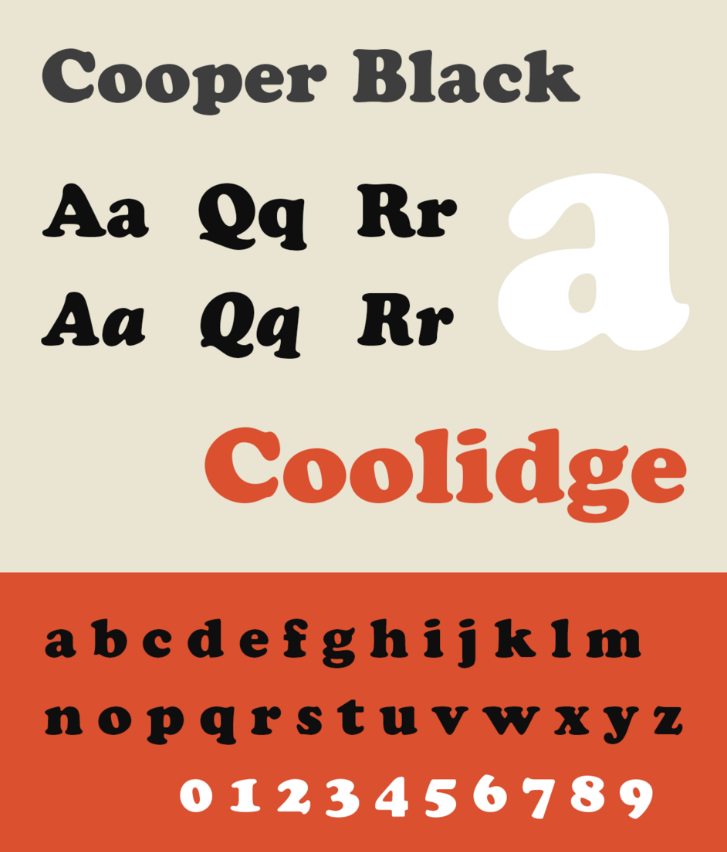
Cooper Black is a classic serif font with rounded, bold letterforms. Widely used in vintage posters, album covers, and nostalgic branding.
Best for:
- Retro posters
- Vintage logos
- Editorial headlines
2. Lobster – Classic Retro Script
Lobster is a well-known script font with strong retro personality. Ideal for food branding, cafés, packaging, and lifestyle designs.
Style: Friendly, bold, and expressive.
3. Pacifico – Relaxed 1950s Script
Inspired by American surf and signage lettering, Pacifico delivers a warm and casual vintage feel.
Great for:
- Merchandise
- Social media graphics
- Retro branding concepts
4. Playfair Display – Elegant Vintage Serif
Playfair Display offers a classic editorial look with high contrast strokes, perfect for premium and sophisticated designs.
5. Anton – Bold Retro-Modern Display
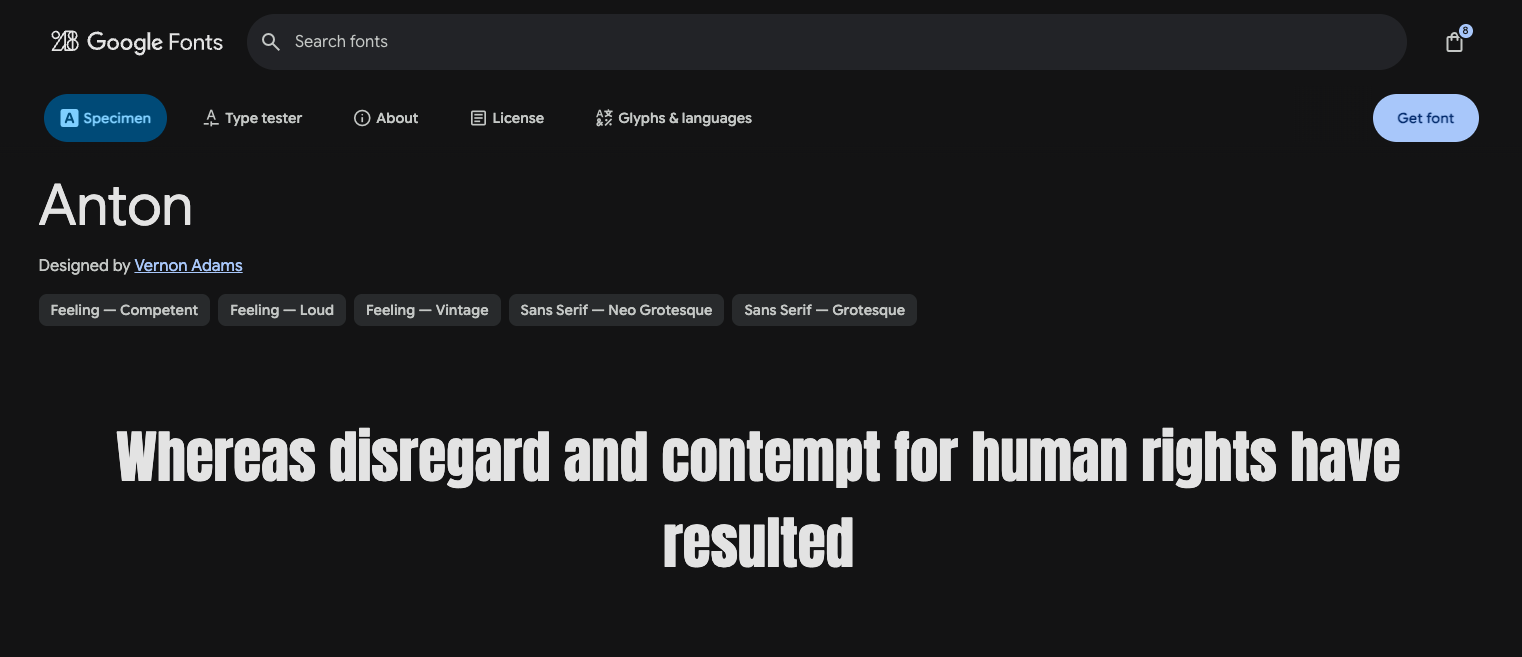
Although minimal, Anton works extremely well in retro-inspired layouts when paired with vintage illustrations or textures.
6. Bront Olo – Groovy Retro Display Font (Kangfont)
Bront Olo is a bold groovy display font inspired by 60s–70s pop typography. Its thick curves and playful rhythm make it perfect for expressive designs.
Key features:
- Strong retro personality
- Ideal for posters, logos, and t-shirts
7. Sirelia – Retro Groovy Display Font (Kangfont)
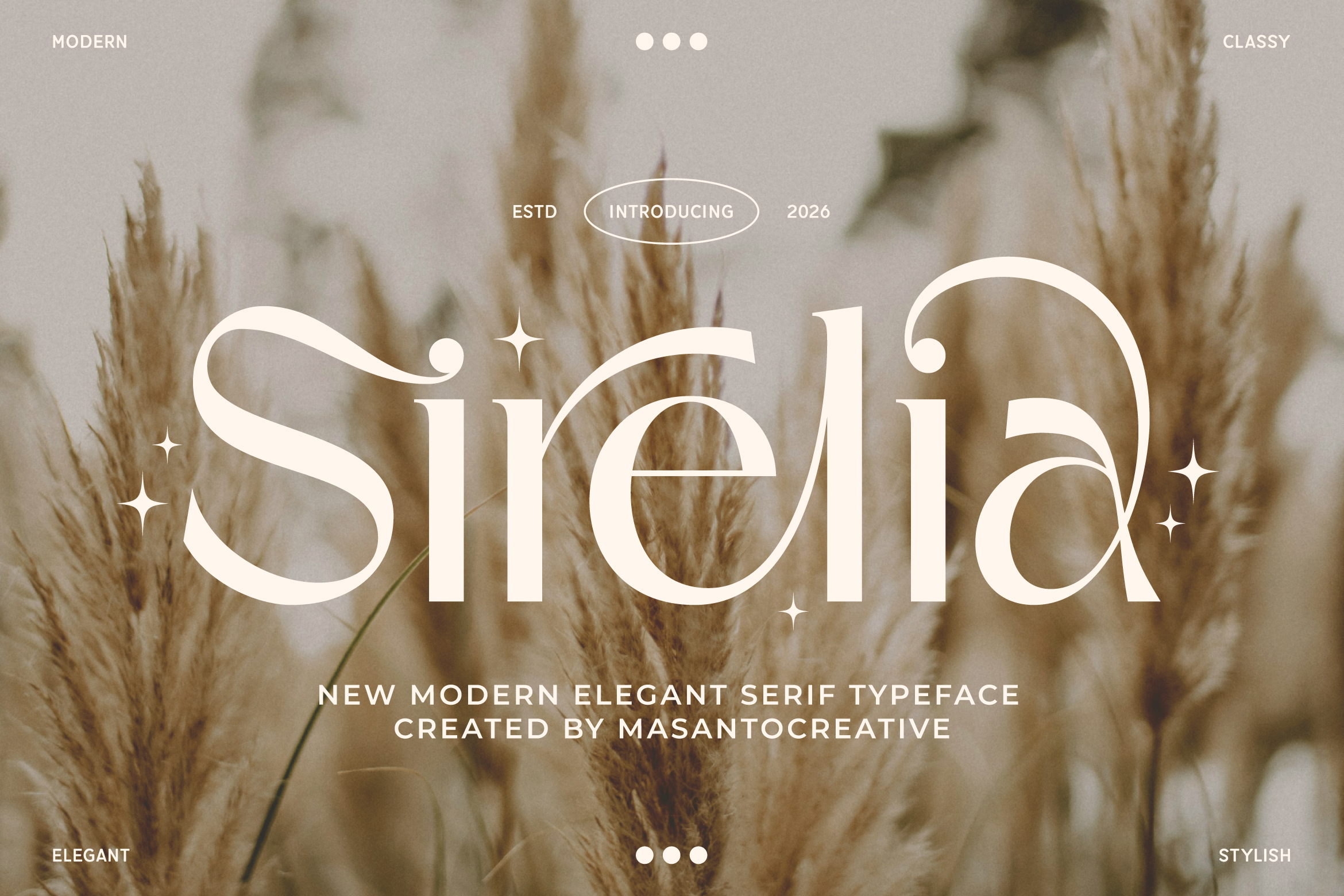
Sirelia combines bold retro curves with modern versatility. It works beautifully for creative branding, album covers, and statement typography.
8. Abril Fatface – Dramatic Vintage Headline Font
Abril Fatface delivers strong contrast and classic elegance, inspired by old advertising typography.
9. MC Verona – Bold Vintage Display Font (Kangfont)
MC Verona blends retro aesthetics with a modern structure. Designed for headlines and branding that need a strong visual voice.
10. Bebas Neue – Clean Retro-Style Sans
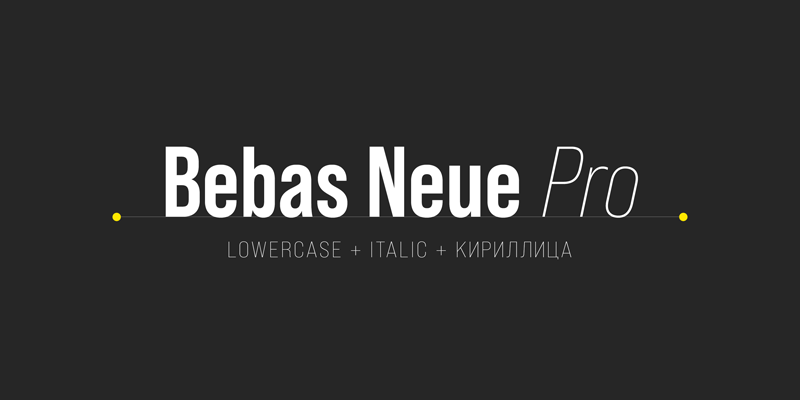
Bebas Neue is simple, bold, and versatile. While modern in structure, it works well in retro poster and branding layouts.
Bonus: Caslon Antique – Old-Style Vintage Typeface
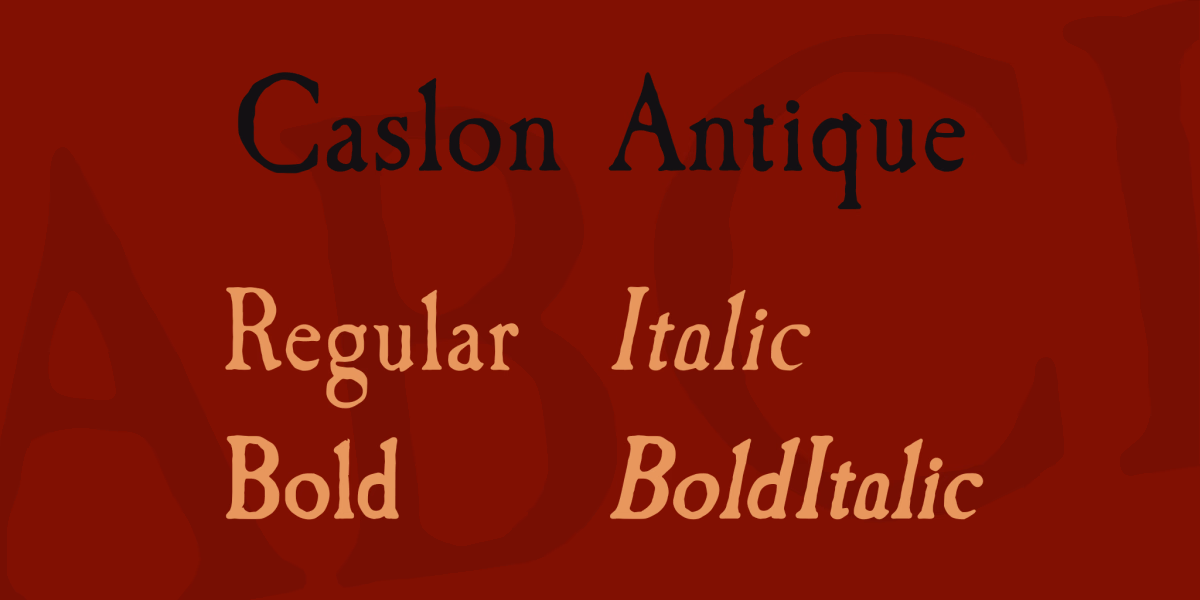
Caslon Antique is often used to create antique, historical, or early-era design aesthetics.
How to Choose the Right Retro Vintage Font
✔ Match the font with your brand personality
✔ Look for alternates and ligatures for uniqueness
✔ Use bold display fonts for headlines
✔ Combine serif, script, and sans for contrast
Conclusion
Retro vintage fonts continue to be a powerful design tool. From iconic classics to bold modern-retro styles like Bront Olo, Sirelia, and MC Verona, choosing the right font can elevate your branding and visual identity instantly.